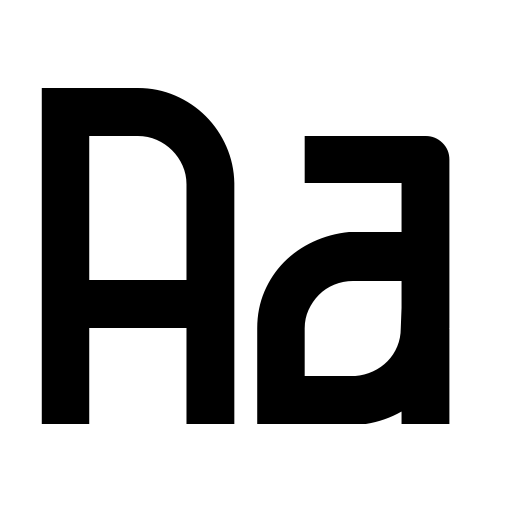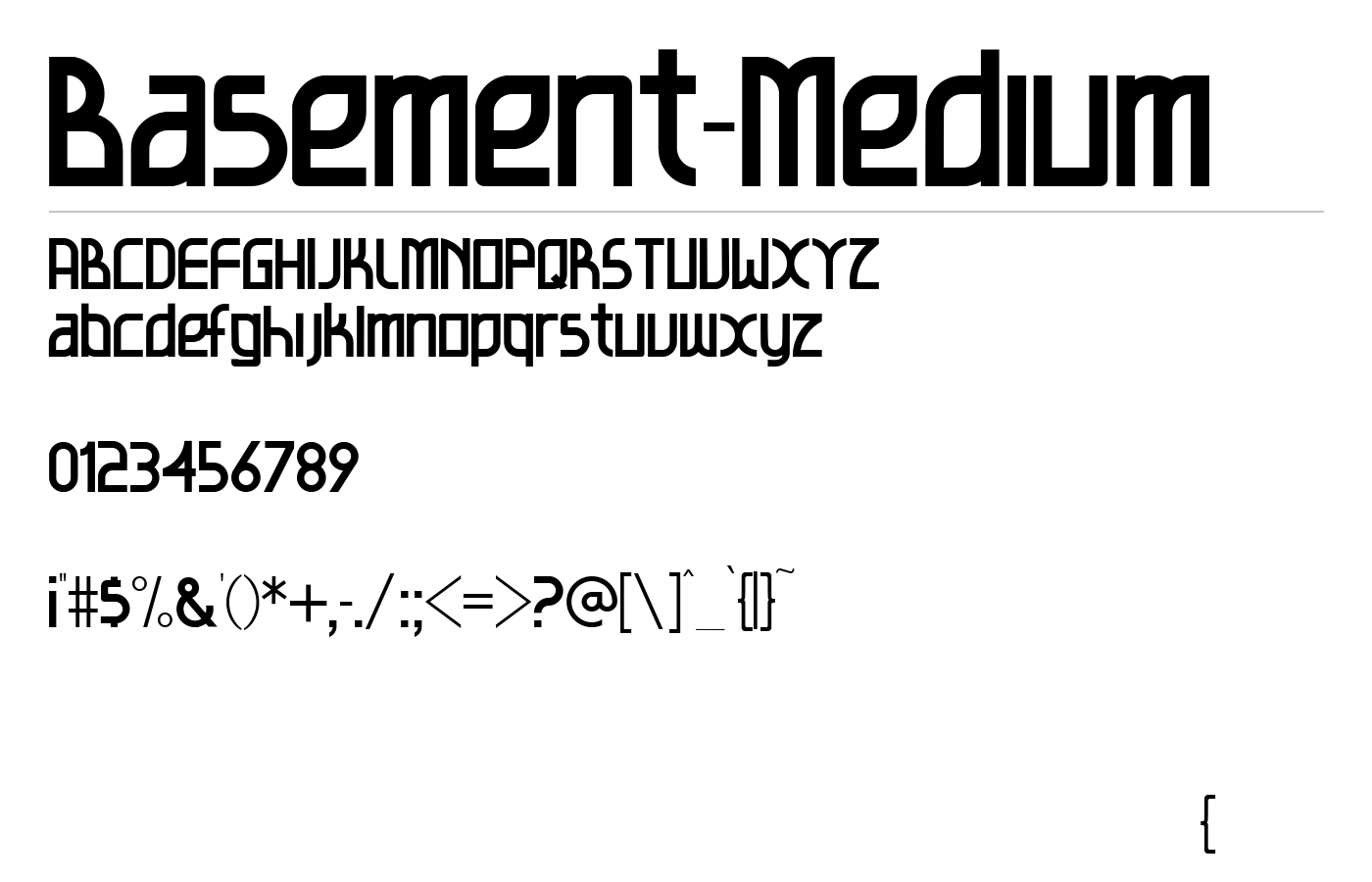
Basement-Medium is a distinctive sans serif font with a bold, condensed design and a tall x-height, giving it a sleek, modern feel. Its clean, geometric letterforms coupled with sharp edges and unusual character shapes create a contemporary, slightly futuristic style. This font works best for headlines, logos, and branding that seek a strong, urban, and edgy impression.
Basement-Medium Font
About Basement-Medium Font
| Font family | Basement-Medium Font |
| Designer | Armando Nhabanga |